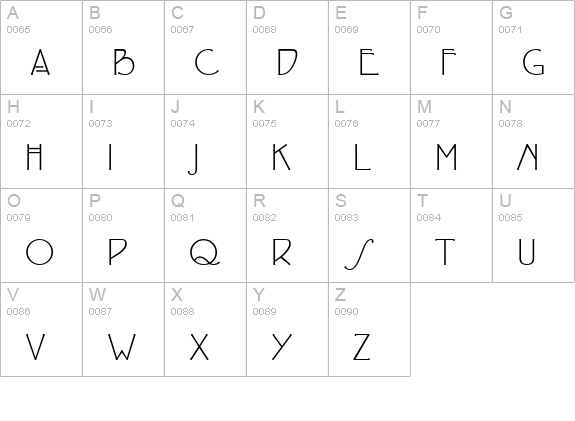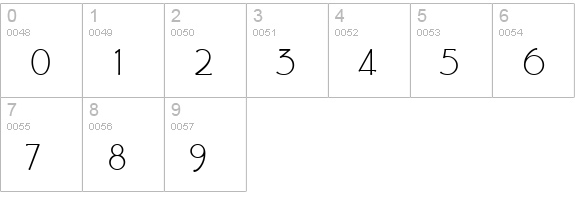
EaglefeatherFormalLight Font Details
EaglefeatherFormalLight is an elegant and sophisticated font that exudes a sense of grace and refinement. With its delicate strokes and clean lines, this font is perfect for formal occasions, such as wedding invitations, event programs, and professional presentations. The EaglefeatherFormalLight font features a unique combination of traditional calligraphy and modern design elements, resulting in a timeless and versatile typeface. Its light weight adds a touch of delicacy, making it suitable for both bold headlines and subtle body text. One of the best things about EaglefeatherFormalLight is that it is completely free. Yes, you read that right - you can download and use this stunning font without spending a dime. It is freely available at FontsMarket.com, a reputable website that offers a wide range of high-quality fonts for designers and typographers. Whether you are a professional graphic designer or a DIY enthusiast, EaglefeatherFormalLight is a must-have in your font collection. Its classic and refined aesthetic will elevate any project, giving it a polished and elegant look. So why wait? Head over to FontsMarket.com and start downloading EaglefeatherFormalLight today!